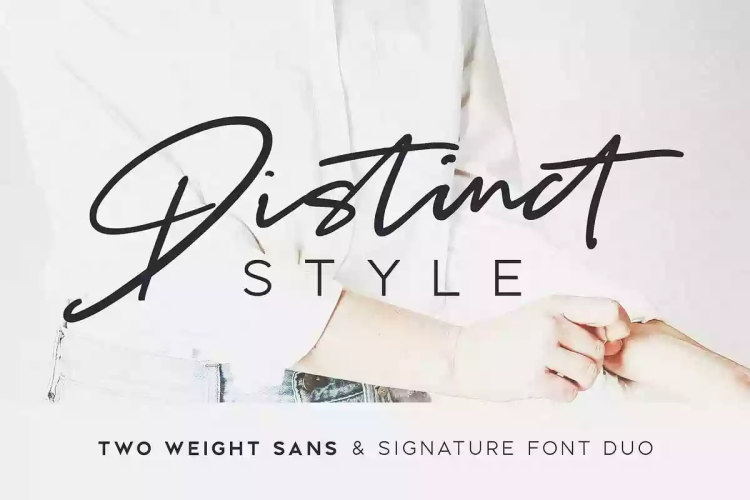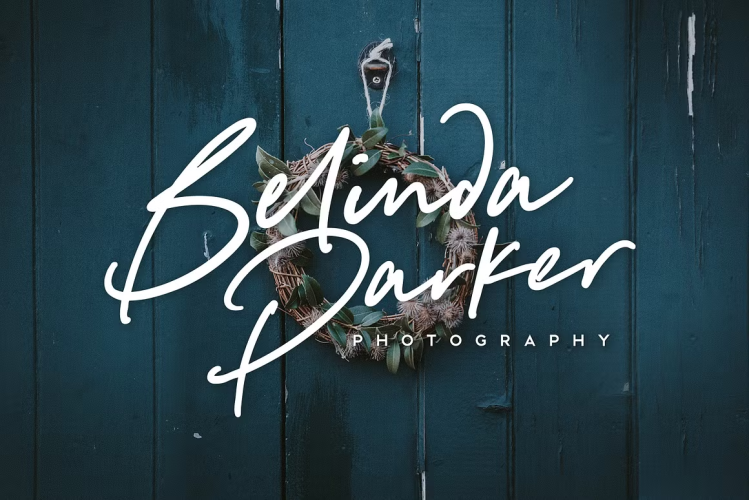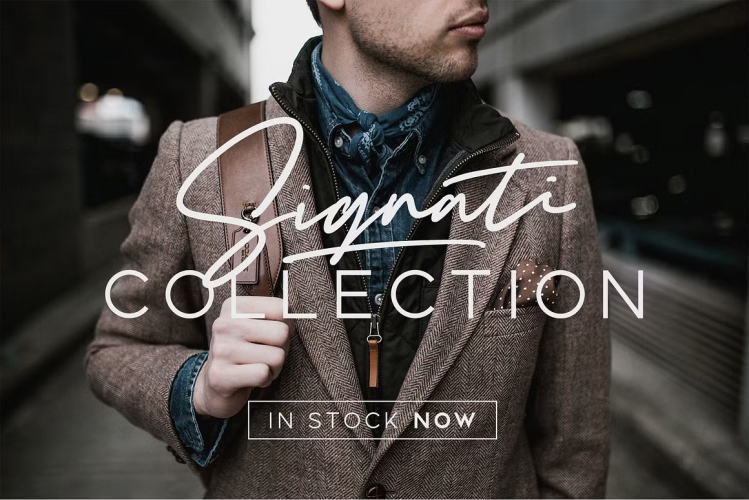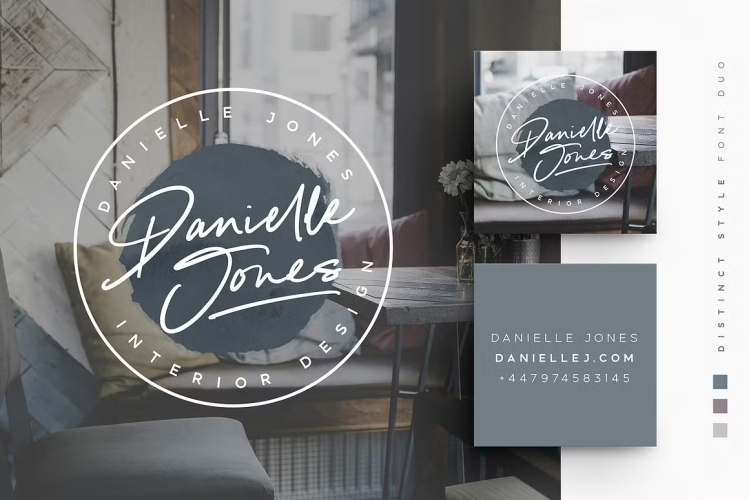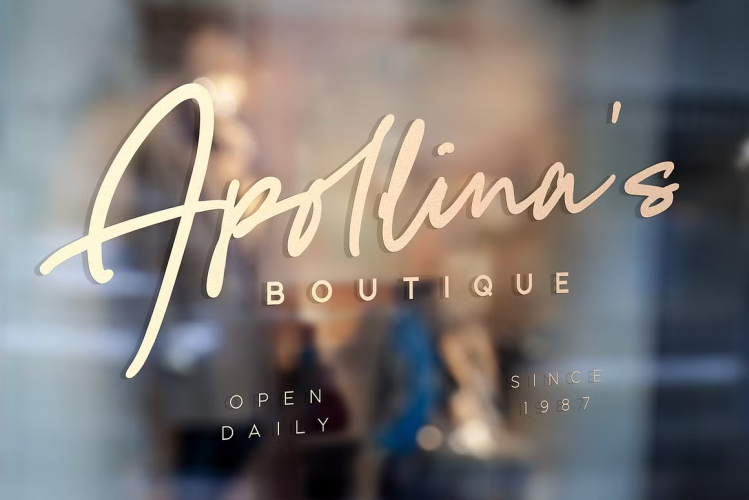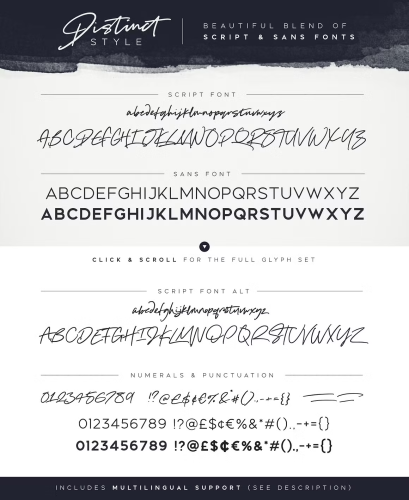
Distinct Style Font
Introducing Distinct Style, a set of stylish and modern signature and sans fonts that perfectly complement each other. This duo includes a fast-flowing script font and a two-weight modern sans serif, offering typographic harmony for all your professional design projects. Whether you’re creating logos, branding, magazines, blog posts, social media content, or product designs, Distinct Style is the perfect choice for a contemporary and fashionable look.
This is a classy, fast-flowing signature font containing upper- and lowercase characters, numerals, and a wide range of punctuation.
This is a second version of Distinct Style Script, with an entirely new set of upper & lowercase characters. If you want to avoid letters looking the same each time to recreate a custom-made style or try a different word shape, switch to this font for an additional layout option.
A stylish, modern sans-serif font containing uppercase-only characters, numerals and an extensive range of punctuation. Creates a perfect pairing contrast with the Distinct Style Script fonts.
A bolder version of the Distinct Style Sans font. Add some contrast to your text by pairing this with the Sans Light version, or use it in smaller sizes.
Type any a-z, A-Z, or 0-9 characters in this font to generate a ligature if you cannot access them with Opentype software. (If you have Opentype software, ‘Discretionary Ligatures’ can be turned on for the Distinct Style Script fonts, automatically switching standard letter pairs into the provided ligatures). Distinct Style Ligatures also contain 4 swashes assigned to the following keys: [ ] { }
Where Distinct Style Font works best
Distinct Style Font brings a personal, handwritten warmth to invitations, menus and place cards.
Craft brands — coffee, cosmetics, bakery — use scripts like Distinct Style Font for signature-style logos and labels.
Pair Distinct Style Font with a plain sans for quotes, stories and Pinterest pins that feel handmade.